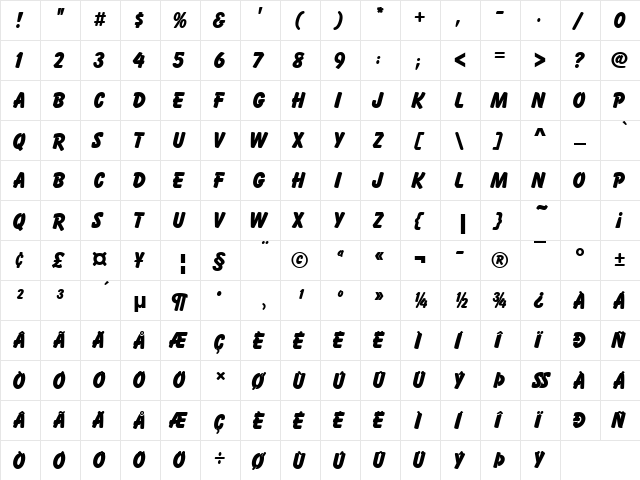
Balloon Becker Poster Ext Bold Regular
Design Context for Balloon Becker Poster Ext Bold Typeface
Balloon Becker Poster Ext Bold is a composed and adaptable typeface that performs quietly and consistently across a wide range of design contexts. Its bold stroke weight gives it real presence on the page.